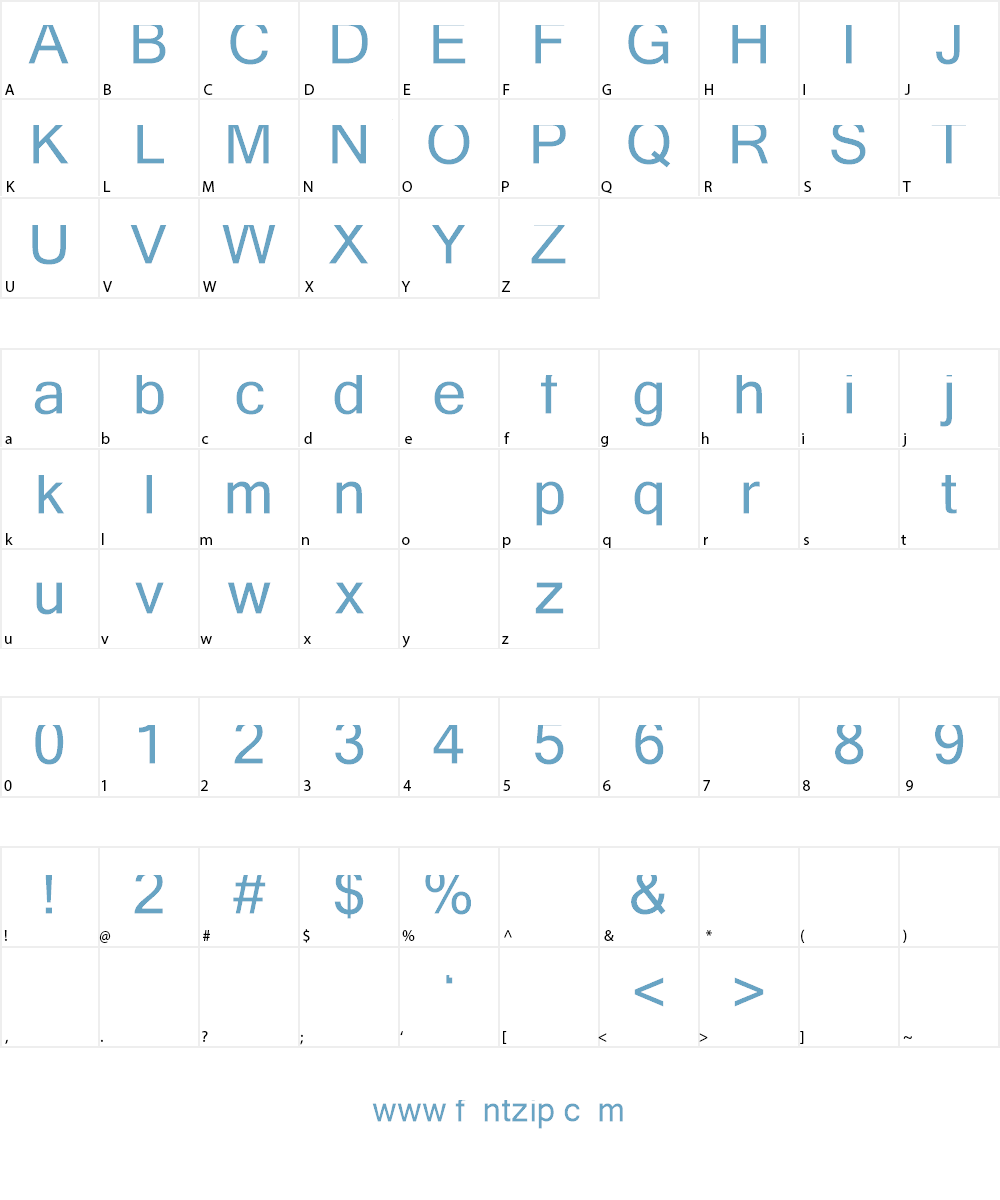
The Budapest Glagolitic Fragments (Budapest, Országos Széchényi Könyvtár, MS Duod. Eccl. Slav. 2) are two fragments from a parchment manuscript containing nine lines of text from the Old Slavonic translation of the Life of St Symeon Stylites written in round glagolitic script; they are almost certainly the oldest witness to the Slavonic version. The fragments have been edited twice in paper editions, by Király in 1955 and by Reinhart and Turilov in 1989-90. The object of the present study is therefore not primarily to publish the text as such, but rather to demonstrate the potential of the new technology for the encoding, edition and publication of glagolitic texts, and to encourage its use for this purpose. Nevertheless, some new contributions to the study of the fragments are made in the commentary to the edition.
The original edition was encoded in SGML in 2001. This was followed by an XML version two years later, reflecting the advances in technology made over that period. The inclusion of glagolitic in Unicode 4.1, published on Thursday, 31 March 2005, now at last makes possible not only a revised, Unicode-compliant XML edition, but also an HTML encoding.